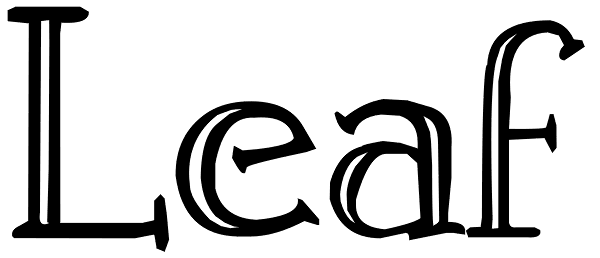
Leaf
This "Leaf" font has been swirling in my head for years - I remember my sister and I making letter formations like these when I was young. It was exciting to see the lettering look even better on paper than it did in my mind! "Leaf" surprised me by...
Leaf
Leaf Filled